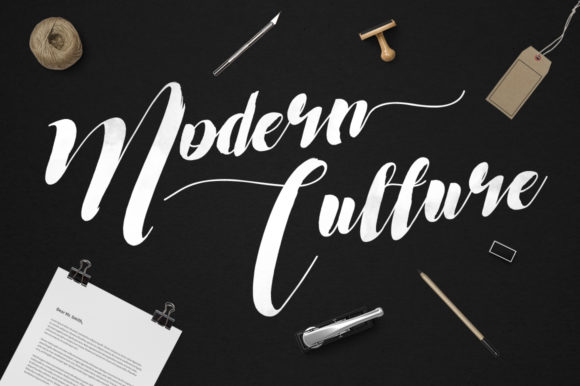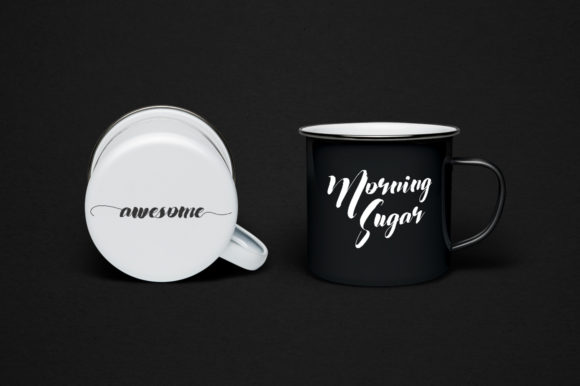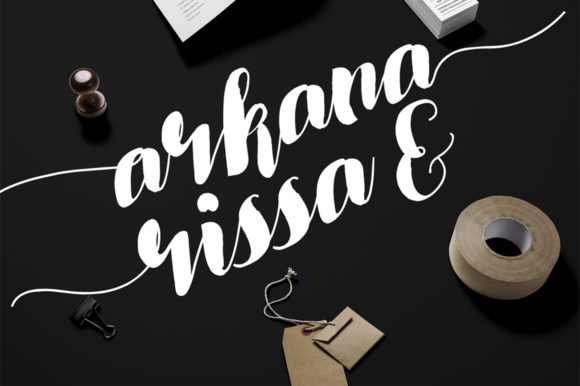
Wonder Sunshine Font
About Wonder Sunshine Font
Introducing Wonder Sunshine, a font that perfectly balances charm and elegance, capturing the essence of classic calligraphy with a modern twist. This stunning script font is a stylish homage to the art of handwritten lettering, designed to elevate your designs to new heights.
Wonder Sunshine’s charm lies in its varying baseline, which gives it a playful and dynamic feel. The letters dance gracefully across the page, adding movement and personality to your designs. The smooth lines create a fluid and effortless look, while the stunning alternates and glyphs add a touch of uniqueness and creativity.
The elegance of Wonder Sunshine is evident in its beautifully crafted glyphs and characters. Each letter is meticulously designed, resulting in a font that exudes sophistication and grace. The balanced strokes and well-proportioned characters make it a pleasure to read and work with, making it ideal for various design projects.
With Wonder Sunshine, your designs will shine like rays of sunlight. Its timeless appeal makes it suitable for a wide range of applications, from wedding invitations and thank you cards to quotes, greeting cards, logos, and business cards. Its versatility allows it to complement any design that requires a handwritten touch, enhancing the overall aesthetic.
The careful attention to detail in Wonder Sunshine’s design ensures that it remains a stylish choice for both contemporary and traditional themes. Its classic calligraphy roots give it a sense of timelessness, making it a font that can be used in a variety of contexts without losing its appeal.
Whether you’re using Wonder Sunshine for web or print, it will add a touch of elegance and sophistication to your projects. Its graceful curves and flowing lines will captivate your audience and leave a lasting impression.
In conclusion, Wonder Sunshine is a charming and elegant script font that pays homage to classic calligraphy while maintaining a modern edge. Its varying baseline, smooth lines, gorgeous glyphs, and stunning alternates all contribute to its allure. Embrace Wonder Sunshine in your designs, and watch as it brings a touch of sophistication and magic to your creative endeavors.